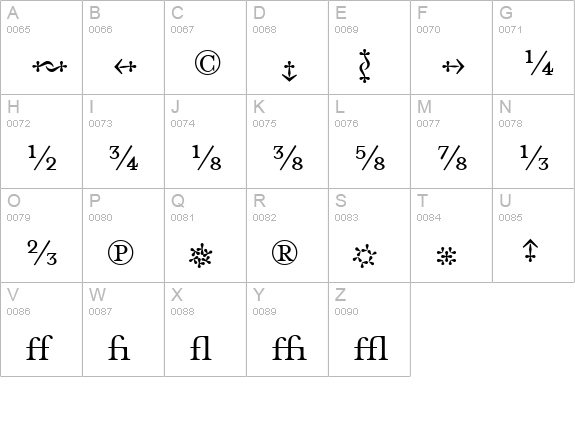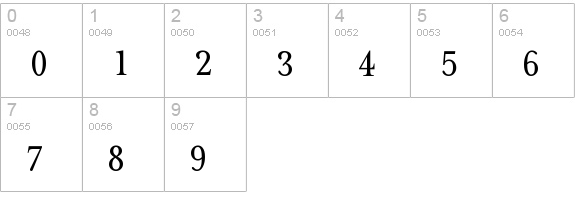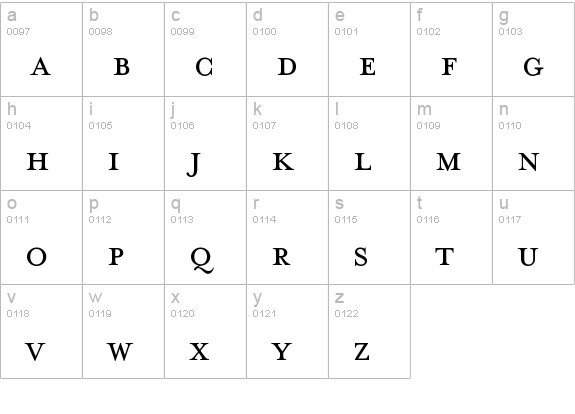
MrsEavesFractions Regular Font Details
MrsEavesFractions Regular is the standard, neutral variant in the MrsEavesFractions typeface family \xE2\x80\x94 well suited to general body text, paragraphs, and standard typographic work.
MrsEavesFractions Regular is a charming and elegant font that is perfect for adding a touch of sophistication to your designs. With its delicate serifs and graceful curves, this typeface is ideal for creating eye-catching text elements. The fraction glyphs included in this font are beautifully designed, making it a versatile choice for any project that requires precise typographic details. Best of all, MrsEavesFractions Regular is freely available to download at FontsMarket.com. Whether you're working on a print project, website design, or any other creative endeavor, this font is sure to elevate your work and impress your audience. Don't miss out on the opportunity to enhance your designs with this exquisite typeface - download MrsEavesFractions Regular today and add a touch of sophistication to your projects!